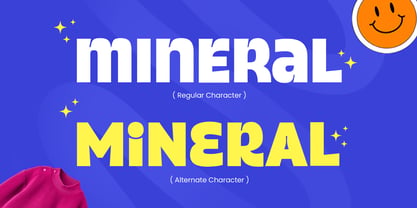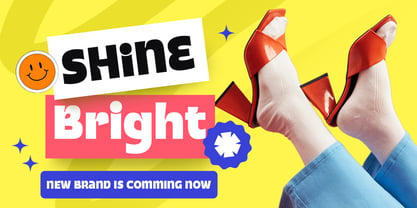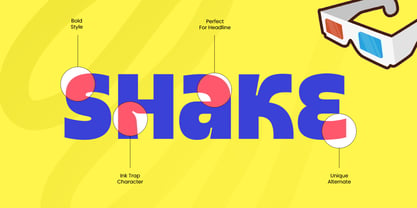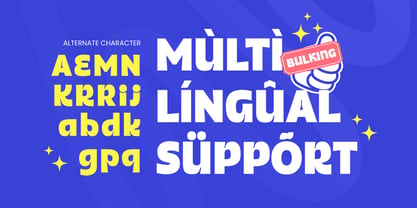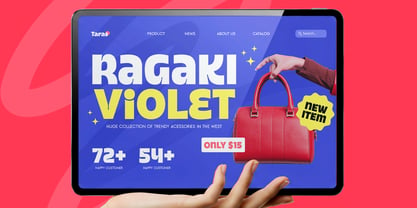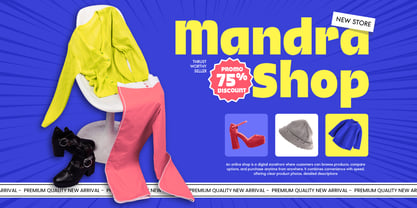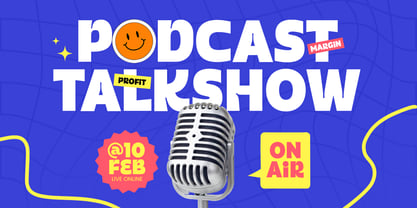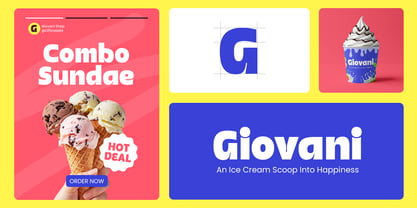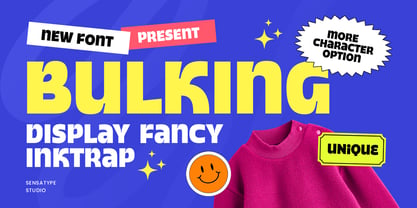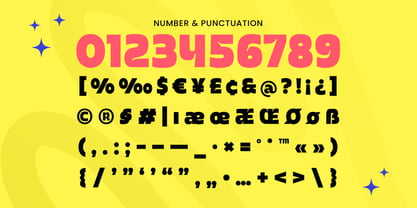
Bulking
Die Schriftfamilie Bulking wurde von Zamroni Hamzah entworfen und von Sensatype Studio veröffentlicht. Bulking enthält 1 Stile. Mehr über diese Familie
BULKING is a display fancy inktrap font designed to combine bold personality with sharp technical precision. Featuring distinctive inktrap details and strong geometric structure, this typeface delivers a modern, high-impact look that feels confident, unique, and visually striking.
Built for statement typography, BULKING performs exceptionally well in logos, wordmarks, posters, packaging, website headers, branding systems, signage, and social media graphics. The inktrap cuts not only add character but also enhance clarity at larger sizes, giving your headlines a crisp, professional edge across digital and print layouts.
Whether you’re building a creative brand identity, launching a bold campaign, designing eye-catching packaging, or crafting modern promotional visuals, BULKING provides a powerful display foundation that makes every word stand out with stylish authority.
Inspiration Behind BULKING
BULKING is inspired by contemporary inktrap typography and modern display branding—where sharp detailing meets bold structure. The design focuses on expressive cuts and confident proportions to create a font that feels both technical and artistic, perfectly suited for impactful branding and creative visual systems.
BULKING Font Features:
• Fancy display letterforms with distinctive inktrap detailing
• Bold geometric structure for strong visual presence
• Optimized for logos, headlines, and impactful branding
• Uppercase, lowercase, numerals, and punctuation included
• OpenType features for polished professional typesetting
Perfect For
• Logo design, wordmarks, and modern brand identity systems
• Posters, campaigns, and bold promotional headlines
• Packaging, labels, signage, and product branding
• Website headers, social media graphics, and digital ads
• Creative agencies, startups, and contemporary design projects
Multilingual Support
Make a sharp statement with BULKING—a fancy inktrap display font built for bold, modern branding impact. ✨